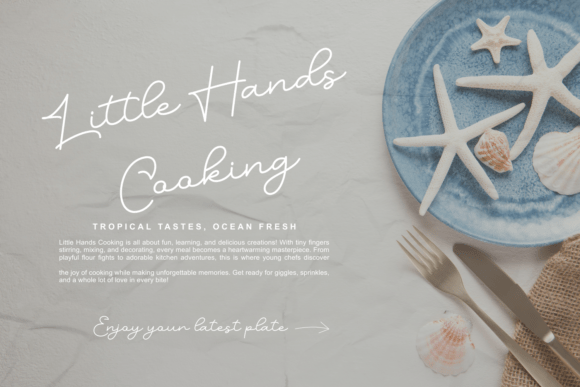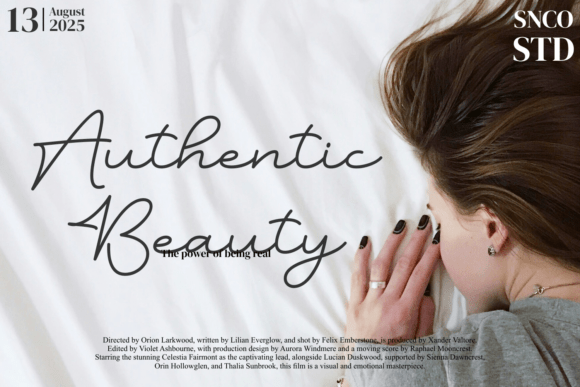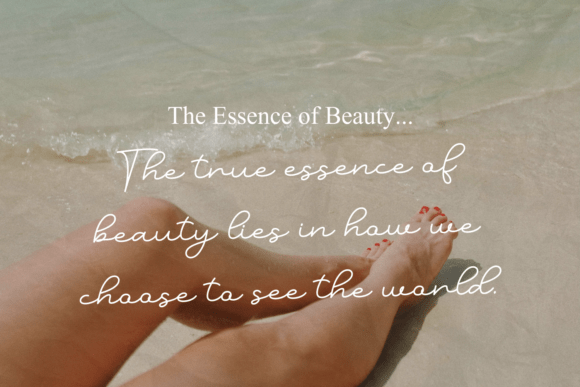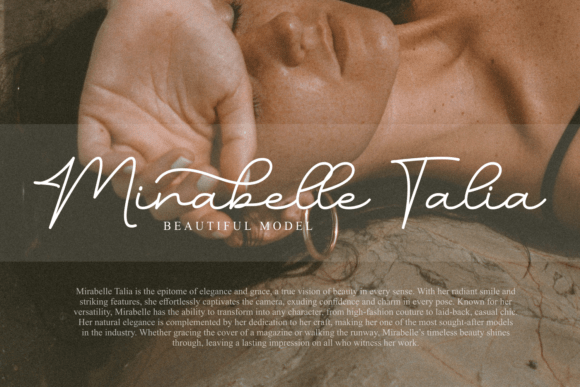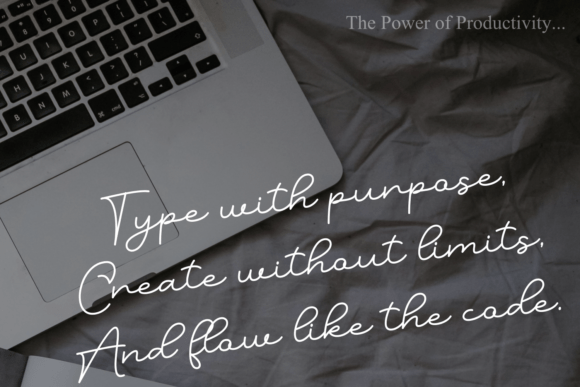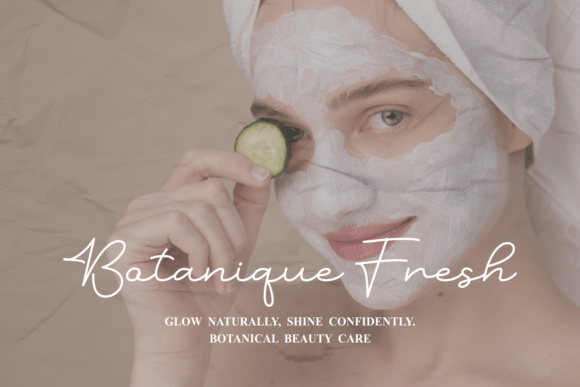
Auralique Font: Elevate Your Designs with Elegance and Sophistication
In the world of typography, a font can make or break the aesthetic of a design. For those seeking a touch of luxury, elegance, and charm, the Auralique font is an exceptional choice. This beautiful script font, with its hand-drawn pencil texture, delicate curves, elegant alternates, and smooth ligatures, is perfect for a variety of design projects, from luxury branding and wedding invitations to lifestyle blogs and social media aesthetics.
The Characteristics of Auralique Font
Auralique is not just another script font; it’s a masterpiece that brings a level of sophistication and refinement to any design. Its key features include:
- Hand-drawn Pencil Texture: The font boasts a unique, hand-drawn pencil texture that gives it a personal and organic feel. This texture adds depth and warmth to the letters, making them stand out in any design.
- Delicate Curves: Auralique’s letters are characterized by their delicate curves, which contribute to the font’s elegance and fluidity. These curves make the text highly readable and visually appealing.
- Elegant Alternates: The font comes with elegant alternates that allow designers to add variety to their text. These alternates can be used to emphasize certain words or phrases, making the design more dynamic.
- Smooth Ligatures: Auralique includes smooth ligatures that connect letters in a harmonious way, creating a seamless flow of text. This feature is particularly useful for creating elegant and sophisticated text.
Uses of Auralique Font
The versatility of Auralique makes it suitable for a wide range of design projects. Here are some of the best uses for this beautiful font:
- Luxury Branding: For brands that want to convey elegance, sophistication, and high-end quality, Auralique is an excellent choice. It can be used in logos, packaging, and marketing materials to create a luxurious feel.
- Wedding Invitations: The font’s romantic and elegant style makes it perfect for wedding invitations, save-the-date cards, and other wedding-related designs. It adds a touch of personalization and charm to these special occasions.
- Lifestyle Blogs: Lifestyle bloggers can use Auralique to give their content a stylish and refined look. The font is ideal for headings, quotes, and other highlighted text.
- Social Media Aesthetics: For social media influencers and businesses, Auralique can be used to create visually appealing graphics, quotes, and stories that stand out in a crowded feed.
Why Choose Auralique Font?
With so many fonts available, why should designers and crafters choose Auralique? Here are a few compelling reasons:
- Unique Texture: The hand-drawn pencil texture of Auralique sets it apart from digital fonts. It adds a human touch to designs, making them more relatable and engaging.
- Elegance and Sophistication: Auralique exudes elegance and sophistication, making it perfect for designs that require a high-end feel.
- Versatility: The font’s versatility means it can be used across various design projects, from luxury branding to social media graphics.
- Easy to Read: Despite its elegant and cursive nature, Auralique is highly legible, making it suitable for both headings and body text.
Tips for Using Auralique Font Effectively
To get the most out of Auralique, here are some tips for using it effectively in your designs:
- Pair with Simple Fonts: For optimal readability, pair Auralique with simple, sans-serif fonts for body text. This contrast will make your design more visually appealing.
- Use for Headings and Quotes: Auralique shines in headings and quotes. Use it to draw attention to key points in your design.
- Experiment with Ligatures: Take advantage of Auralique’s ligatures to create a flowing and connected text. This feature can add a touch of elegance to your design.
- Adjust Letter Spacing: For better readability, adjust the letter spacing according to your design’s requirements. This can help in achieving a balanced look.
In conclusion, Auralique is a stunning script font that can elevate any design with its elegance, sophistication, and charm. Whether you’re working on luxury branding, wedding invitations, lifestyle blogs, or social media aesthetics, Auralique is an excellent choice. Its unique hand-drawn pencil texture, delicate curves, elegant alternates, and smooth ligatures make it a versatile and beautiful addition to your typography arsenal.